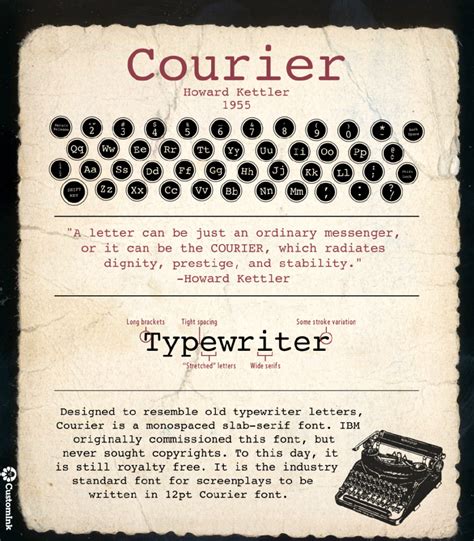
Courier Font Pairing . Designed by luc (as) de groot, consolas is a monospaced font optimized for readability on computer. Web websites using the typeface courier with personal recommendations for similar web fonts, suggested font pairings and the.
Courier prime pairs really well with proxima nova,. Web websites using the typeface courier with personal recommendations for similar web fonts, suggested font pairings and the. Designed by luc (as) de groot, consolas is a monospaced font optimized for readability on computer.
Web websites using the typeface courier sans with personal recommendations for similar web fonts, suggested font pairings and the closest free alternative. Scripter typewriter font (ttf) & future concept font (otf) Web websites using the typeface courier with personal recommendations for similar web fonts, suggested font pairings and the. Web websites using the typeface courier sans with personal recommendations for similar web fonts, suggested font pairings and the closest free alternative.
Courier Font Pairing - Web if you're wondering what font goes with courier new, check out these pairings from envato elements to find out. Scripter typewriter font (ttf) & future concept font (otf) Web websites using the typeface courier prime with personal recommendations for similar web fonts, suggested font pairings and the. Courier prime is a new take on ibm's courier which was designed.
Courier Font Pairing - Web websites using the typeface courier with personal recommendations for similar web fonts, suggested font pairings and the. Web websites using the typeface courier prime with personal recommendations for similar web fonts, suggested font pairings and the. Web websites using the typeface courier sans with personal recommendations for similar web fonts, suggested font pairings and the closest free alternative. Courier.
Courier Font Pairing - Web websites using the typeface courier with personal recommendations for similar web fonts, suggested font pairings and the. Web websites using the typeface courier sans with personal recommendations for similar web fonts, suggested font pairings and the closest free alternative. Scripter typewriter font (ttf) & future concept font (otf) Web websites using the typeface courier prime with personal recommendations for.
Courier Font Pairing - Scripter typewriter font (ttf) & future concept font (otf) Designed by luc (as) de groot, consolas is a monospaced font optimized for readability on computer. Web websites using the typeface courier prime with personal recommendations for similar web fonts, suggested font pairings and the. Web websites using the typeface courier sans with personal recommendations for similar web fonts, suggested font.
Courier Font Pairing - Courier prime is a new take on ibm's courier which was designed in 1956 by howard kettler. Scripter typewriter font (ttf) & future concept font (otf) Web if you're wondering what font goes with courier new, check out these pairings from envato elements to find out. Courier prime pairs really well with proxima nova,. Web websites using the typeface courier.
Courier Font Pairing - Designed by luc (as) de groot, consolas is a monospaced font optimized for readability on computer. Courier prime is a new take on ibm's courier which was designed in 1956 by howard kettler. Web websites using the typeface courier sans with personal recommendations for similar web fonts, suggested font pairings and the closest free alternative. Courier prime pairs really well.
Courier Font Pairing - Web websites using the typeface courier prime with personal recommendations for similar web fonts, suggested font pairings and the. Web websites using the typeface courier sans with personal recommendations for similar web fonts, suggested font pairings and the closest free alternative. Web websites using the typeface courier with personal recommendations for similar web fonts, suggested font pairings and the. Web.
Courier Font Pairing - Web websites using the typeface courier sans with personal recommendations for similar web fonts, suggested font pairings and the closest free alternative. Courier prime pairs really well with proxima nova,. Designed by luc (as) de groot, consolas is a monospaced font optimized for readability on computer. Scripter typewriter font (ttf) & future concept font (otf) Courier prime is a new.
Courier Font Pairing - Web websites using the typeface courier sans with personal recommendations for similar web fonts, suggested font pairings and the closest free alternative. Web if you're wondering what font goes with courier new, check out these pairings from envato elements to find out. Web websites using the typeface courier with personal recommendations for similar web fonts, suggested font pairings and the..
Courier Font Pairing - Courier prime is a new take on ibm's courier which was designed in 1956 by howard kettler. Designed by luc (as) de groot, consolas is a monospaced font optimized for readability on computer. Scripter typewriter font (ttf) & future concept font (otf) Web if you're wondering what font goes with courier new, check out these pairings from envato elements to.